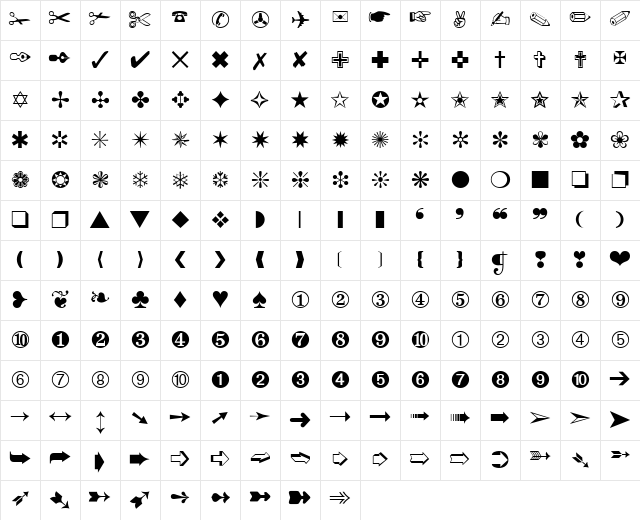
ITCZapfDingbats Roman
Complete ITCZapfDingbats Roman glyph index. Displaying only characters natively supported by ITCZapfDingbats Roman font.
Design Context for ITCZapfDingbats
ITCZapfDingbats is a composed and adaptable typeface that performs quietly and consistently across a wide range of design contexts.